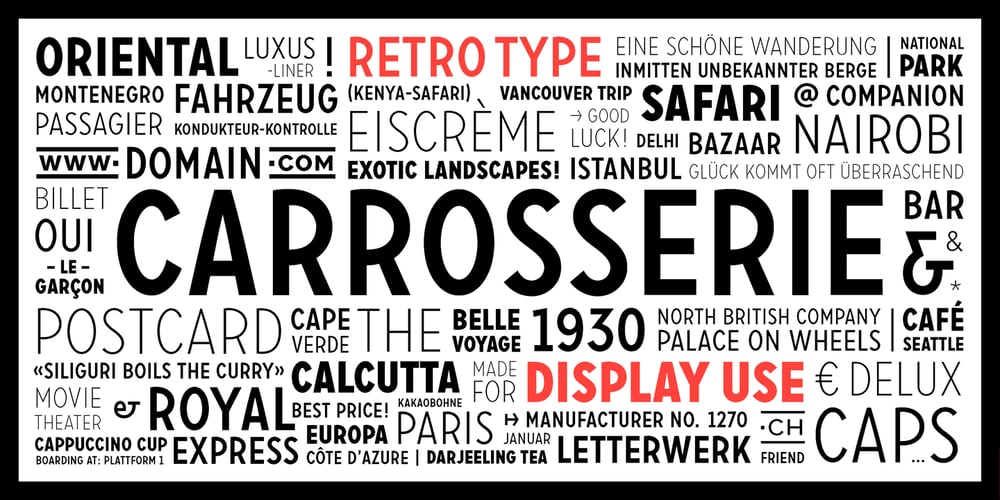
Carrosserie Font Family was designed by Fabian Widmer and published by Letterwerk. Carrosserie contains 7 styles and family package options. Carrosserie is made for display use, inspired by the shapes of the ’30s. It is a capital letter font with alternate characters and special domain symbols (check the PDF in the gallery for details). The font is now available in thin, extra light, light, regular, medium, bold & fat. Enjoy!